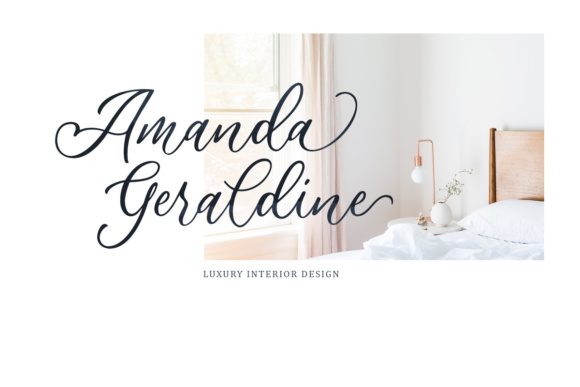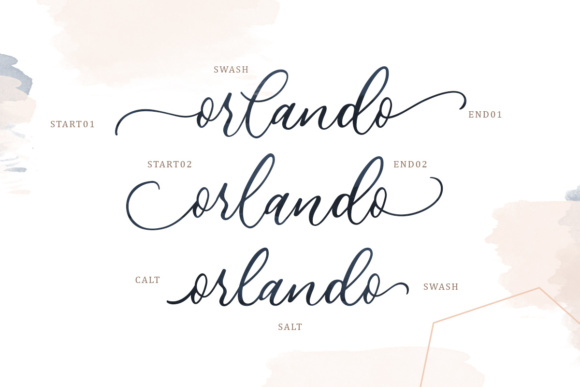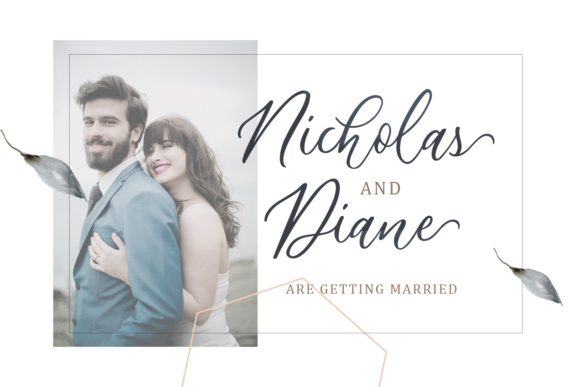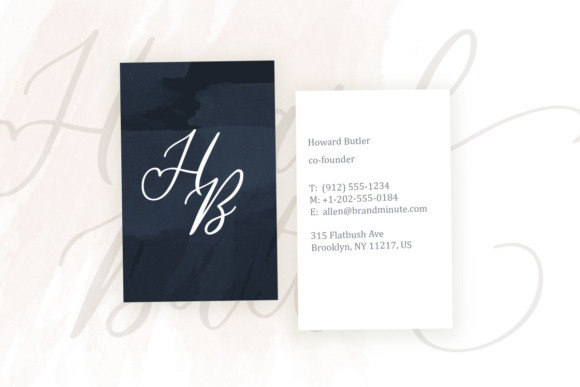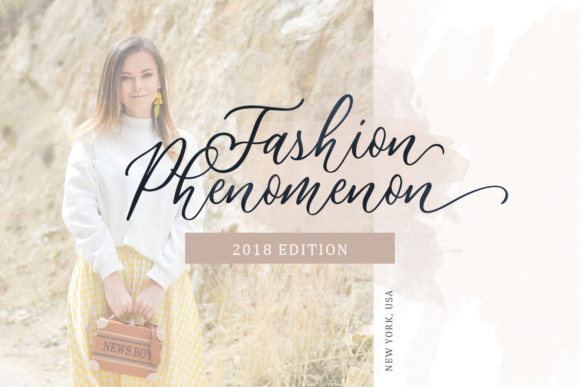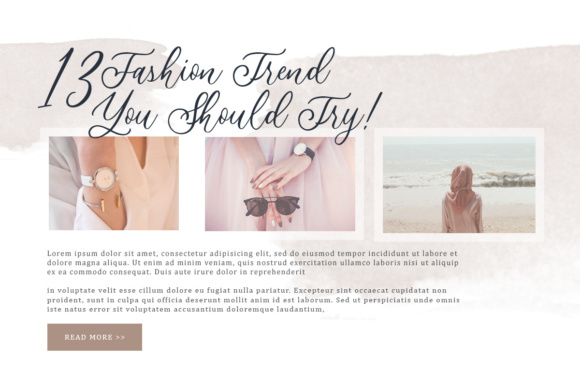
Athalia Script Font: Elevate Your Design with Luxury and Elegance
Athalia Script Font is a stunning modern script typeface that exudes luxury and sophistication. Its natural handwriting style makes it perfect for designers and crafters looking to add a touch of elegance to their projects. Whether you’re working on headlines, invitations, branding, packaging, advertising, or any other design endeavor, Athalia is an excellent choice.
The Beauty of Handwriting Script
Athalia’s handwriting script is its most distinctive feature. The font’s natural, flowing lines and curves give it a unique and personal touch, making it ideal for designs that require a human and approachable feel. The script’s fluidity and rhythm create a sense of movement, drawing the viewer’s eye through the text and creating a sense of visual flow.
Luxury and Versatility
Athalia is more than just a beautiful script font; it’s also incredibly versatile. Its luxury feel makes it suitable for high-end branding, advertising, and packaging designs, while its approachable nature ensures it remains accessible and engaging. Whether you’re designing for digital or print, Athalia’s crisp and clear lines ensure it remains legible and impactful.
Athalia Script Font is a valuable addition to any designer’s or crafter’s toolkit. Its wide range of applications makes it an excellent choice for various projects, including:
- Headlines: Add a touch of luxury to your headlines with Athalia’s elegant script.
- Invitations: Create stunning invitations for weddings, parties, and other special events.
- Branding: Establish a high-end brand identity with Athalia’s sophisticated script.
- Packaging: Elevate your packaging design with a touch of elegance and refinement.
- Advertising: Create eye-catching ads that exude luxury and sophistication.
Why Choose Athalia Script Font?
With so many script fonts available, why choose Athalia? Here are just a few reasons:
- Unique and distinctive: Athalia’s handwriting script sets it apart from more traditional fonts.
- Luxury feel: Athalia’s elegant lines and curves evoke a sense of high-end sophistication.
- Versatile: Suitable for a wide range of design applications.
- Easy to read: Despite its script style, Athalia remains clear and legible.
Tips for Using Athalia Script Font
To get the most out of Athalia Script Font, here are a few tips:
- Use it sparingly: Athalia’s luxury feel can be overwhelming if overused. Balance it with simpler fonts to create visual interest.
- Experiment with colors: Athalia looks stunning in a range of colors, from metallics to rich jewel tones.
- Play with sizes: Use Athalia in a range of sizes to create visual hierarchy and emphasis.
Athalia Script Font is a beautiful and versatile typeface that can elevate any design project. Its luxury feel, unique handwriting script, and wide range of applications make it an excellent choice for designers and crafters. Whether you’re working on a high-end brand identity or a special event invitation, Athalia is sure to impress.